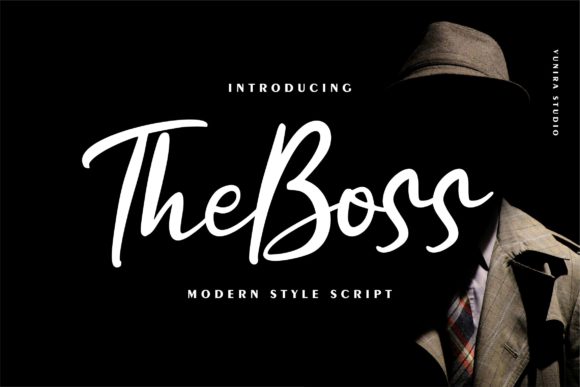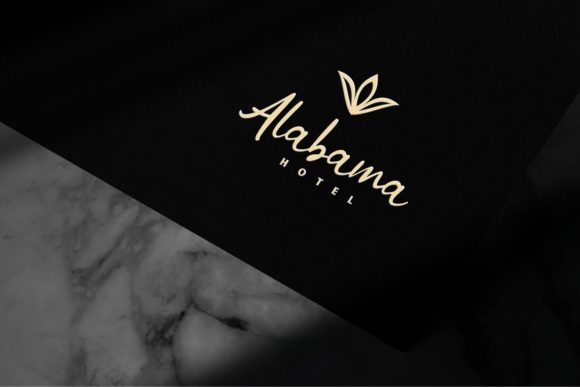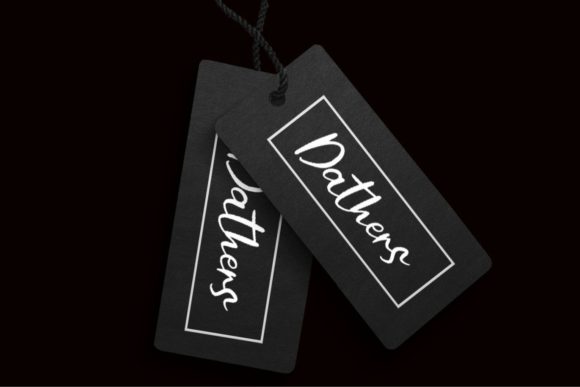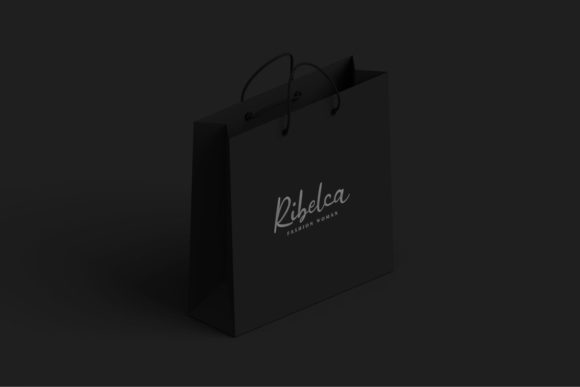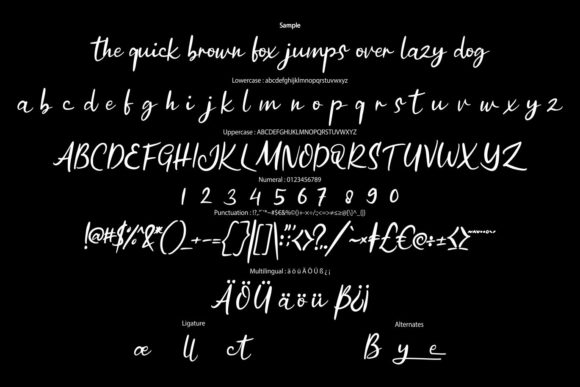
The Boss Font
About The Boss Font
The Boss is a remarkable handwritten font that combines delicacy and elegance in a captivating way. With its distinct and well-rounded letters, this font truly stands out as a masterpiece. Whether you’re looking to create a sophisticated logo, design stunning wedding invitations, or craft eye-catching social media graphics, The Boss is a perfect choice.
The versatility of The Boss allows it to adapt to a wide range of design styles and projects. Its elegant and refined appearance adds a touch of class to any composition. Whether you’re aiming for a modern and minimalist look or a vintage-inspired design, this font effortlessly complements your creative vision.
Each letter of The Boss is carefully crafted with attention to detail. The smooth curves and balanced forms create a harmonious and pleasing visual experience. The result is a font that not only looks beautiful but also exudes a sense of professionalism and craftsmanship.
The Boss is well-suited for various design applications. From branding and packaging to editorial design and stationery, this font brings a touch of sophistication and elegance to your projects. Its versatility extends to both digital and print mediums, ensuring that your designs shine in any format.
Beyond its visual appeal, The Boss offers excellent readability and legibility. Each letter is meticulously designed to ensure clarity and ease of reading. Whether used in headlines, body text, or captions, the font maintains its elegance while delivering your message effectively.
In addition to its aesthetic qualities, The Boss is also incredibly easy to work with. Its user-friendly nature makes it a joy to incorporate into your design process. Moreover, its extensive character set and support for multiple languages enhance its usability and accessibility.
Embrace the delicate and elegant charm of The Boss in your design projects. Let its distinct and well-rounded letters elevate your designs to new heights. Whether you’re creating a brand identity, crafting wedding stationery, or designing social media graphics, The Boss is sure to leave a lasting impression with its versatility and sophistication.